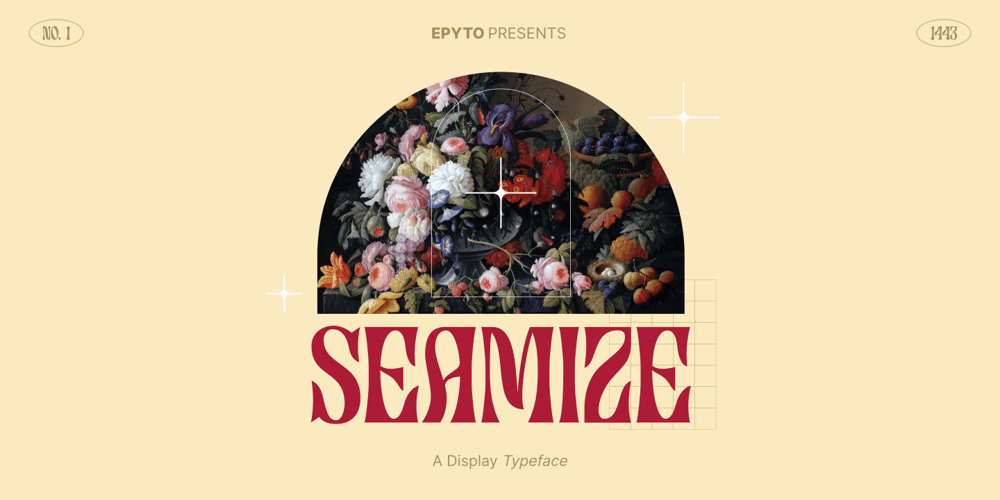
Seamize Font Family was designed by Tegar Hafizhal and published by Epyto Type Co. Seamize contains 1 styles and family package options. Seamize is a display typeface, with a few experimental vibes and a semi-psychedelic feel.It works perfectly for creative projects such as logo, T-shirt/apparel, badge, invitation, packaging, headline, poster, magazine, greeting card, and many other purposes.